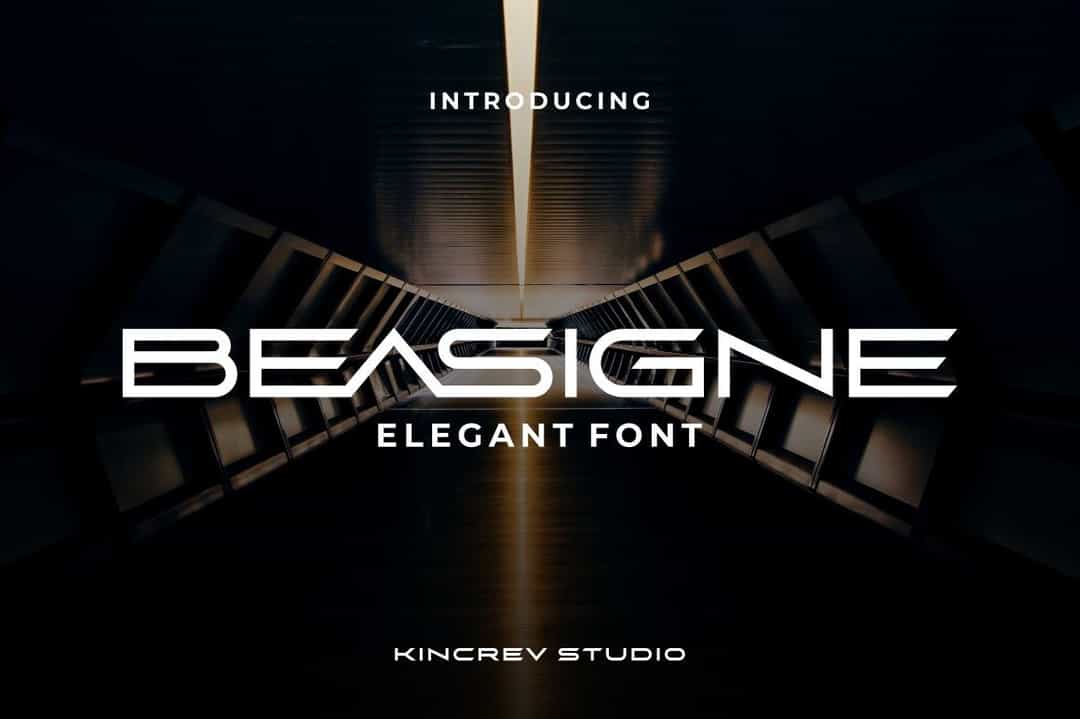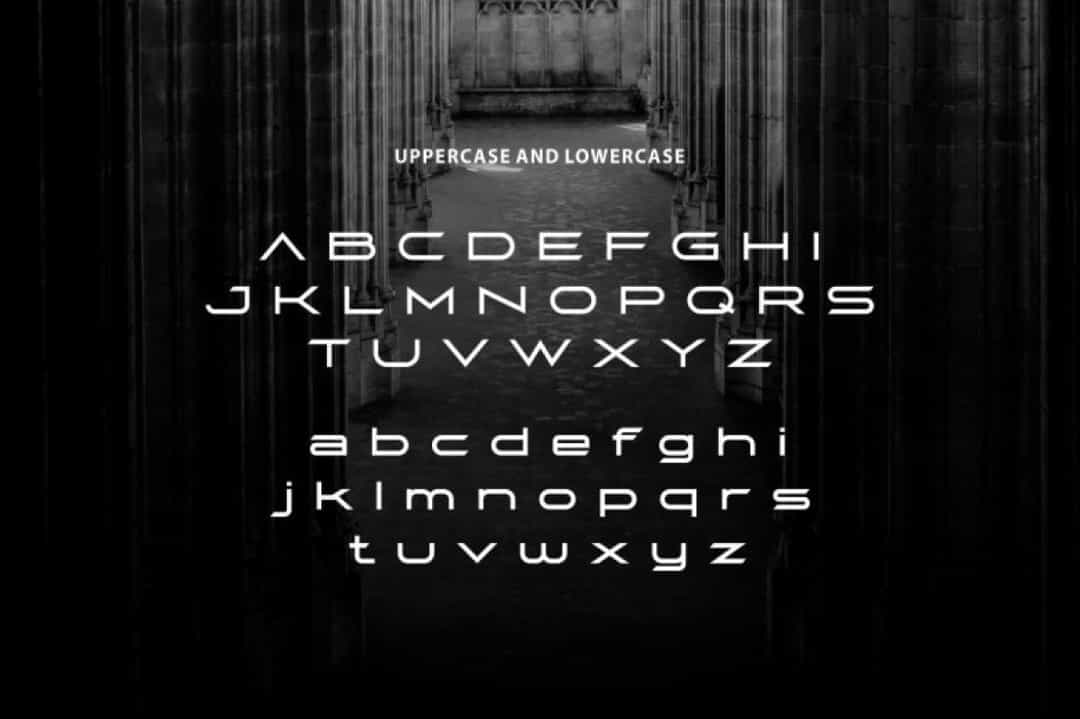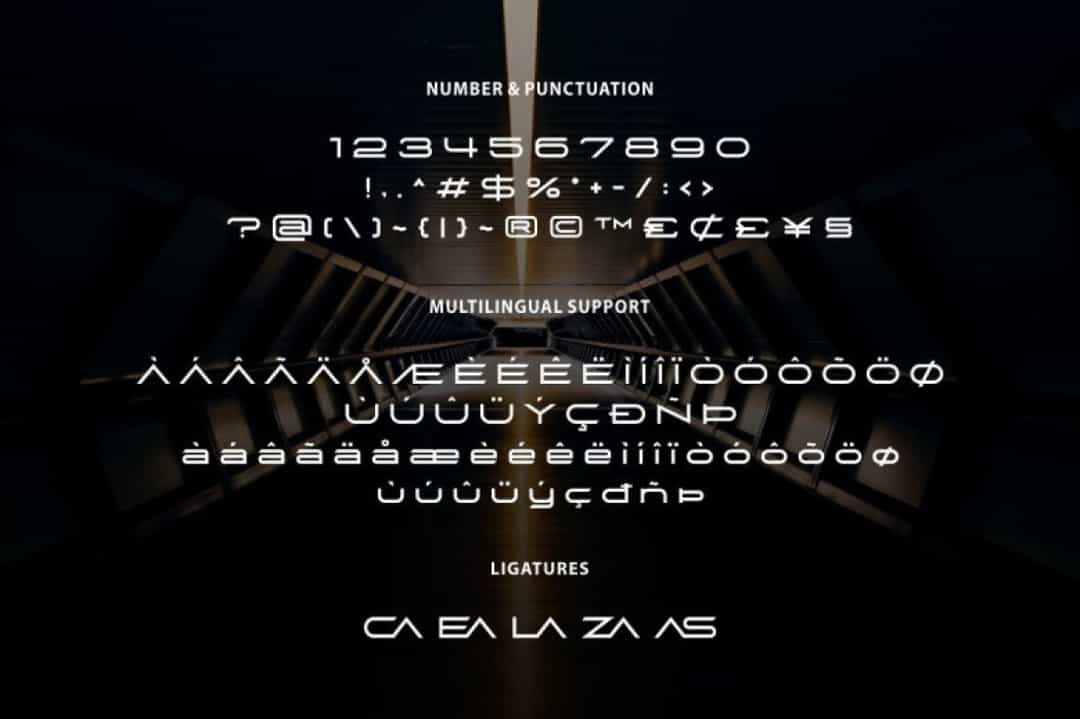
Beasigne It is an ultramodern, high-tech show typeface. Perfect for web design and business cards alike, Beasigne adds an aesthetic twist that adds modernity.